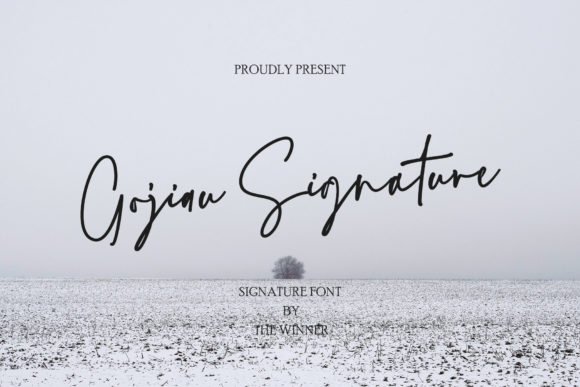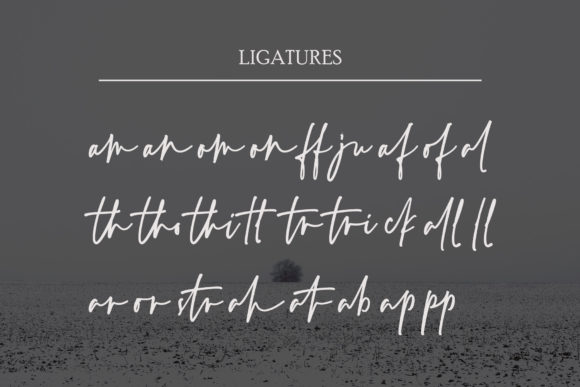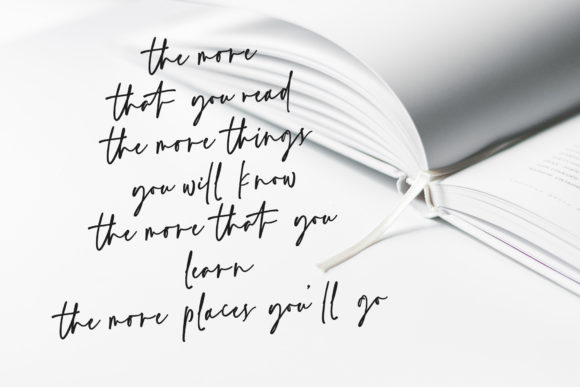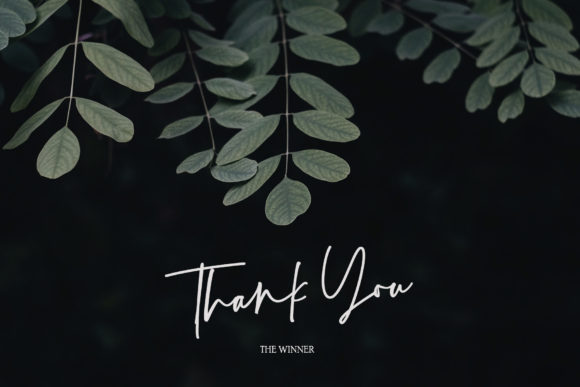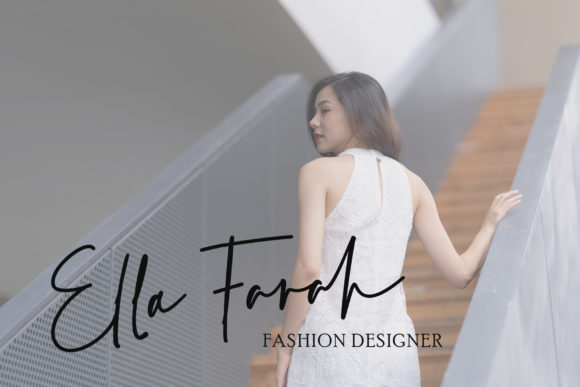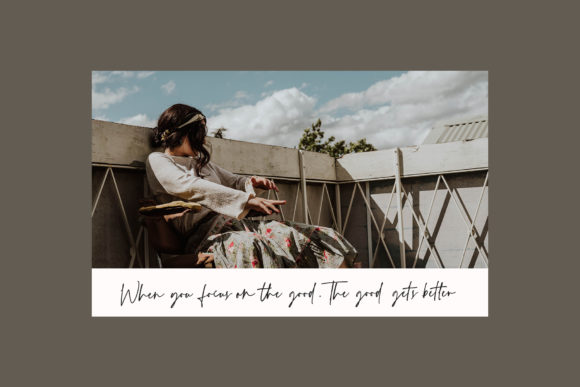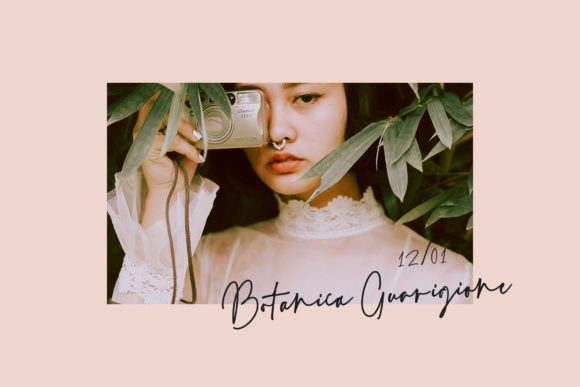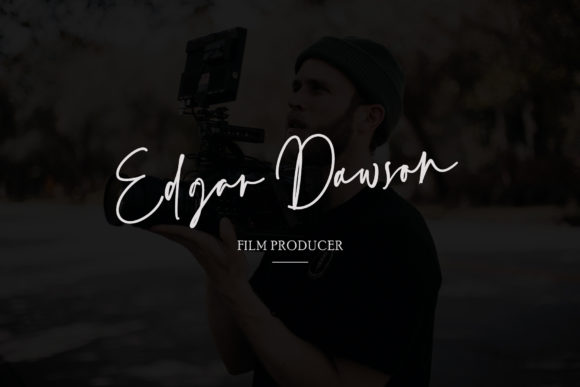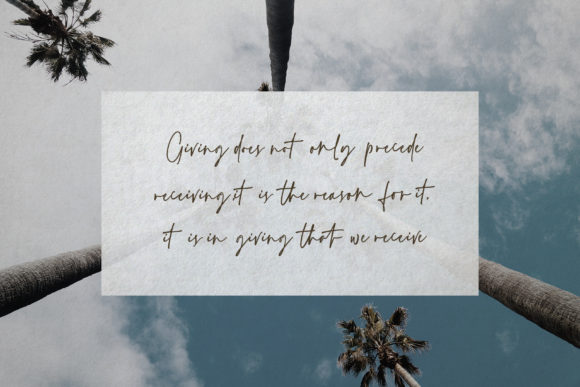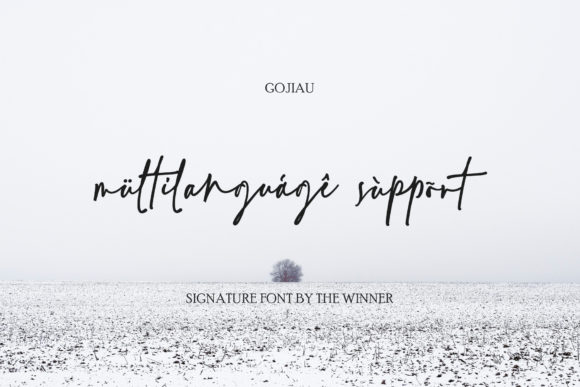
Gojiau Font
About Gojiau Font
Gojiau is a beautiful, paint brushed script font. Whether you’re using it for crafting, digital designing, presentations or greeting cards making, it’s perfect!